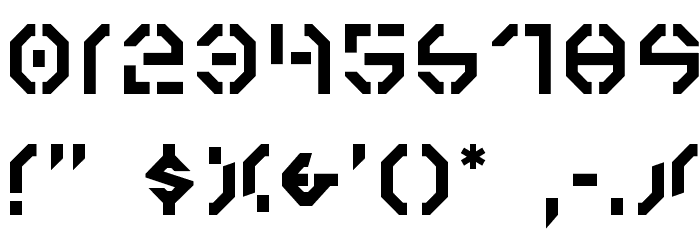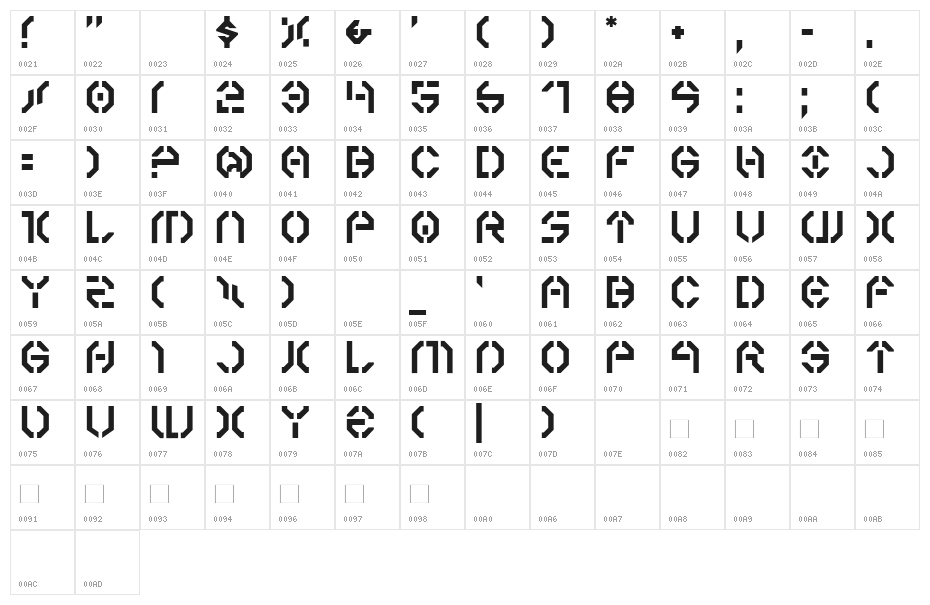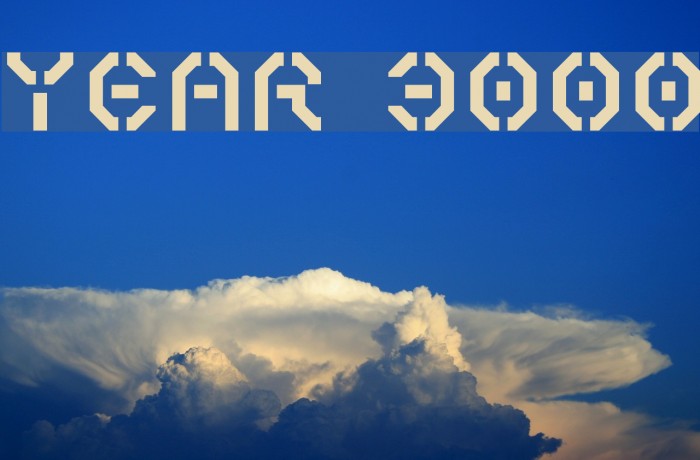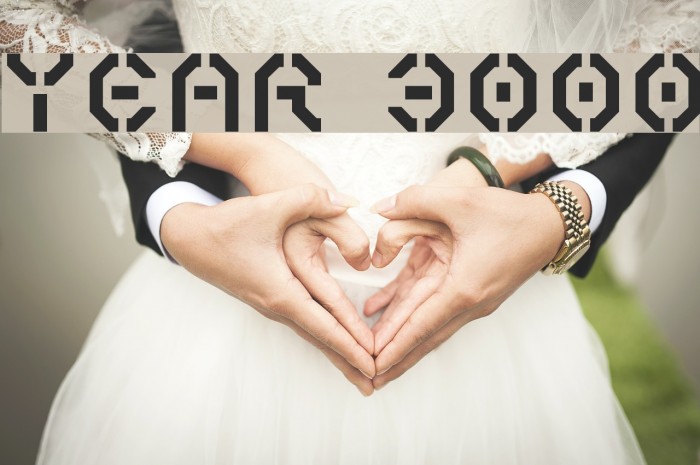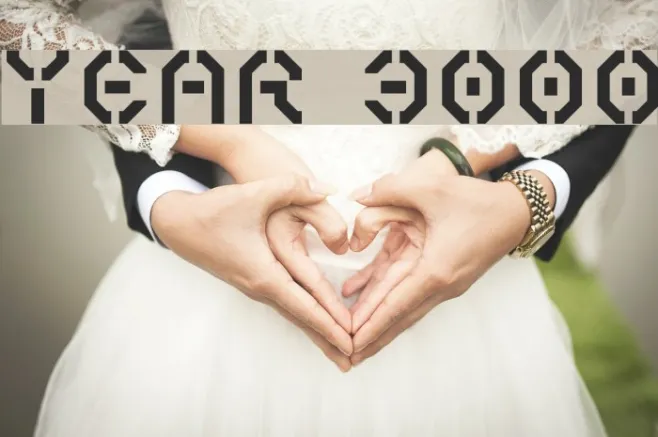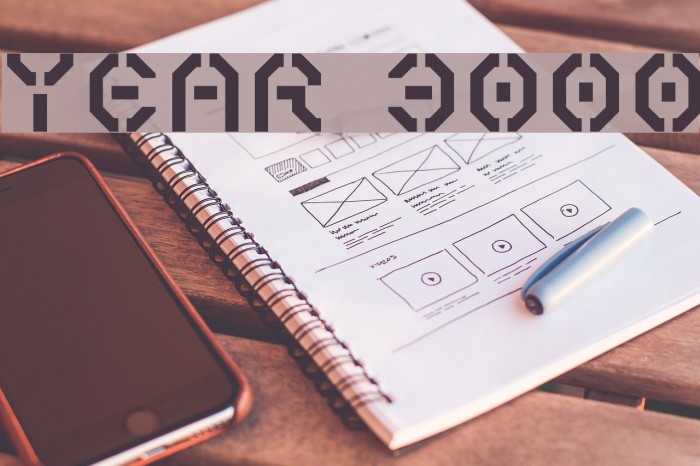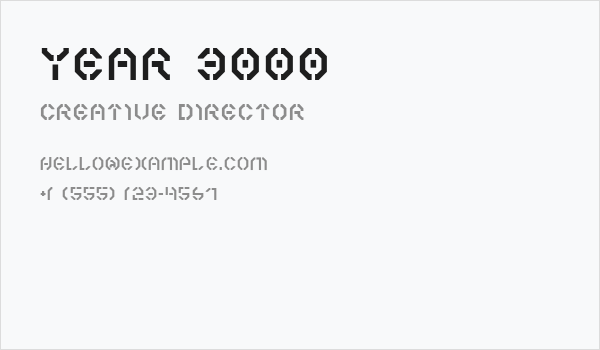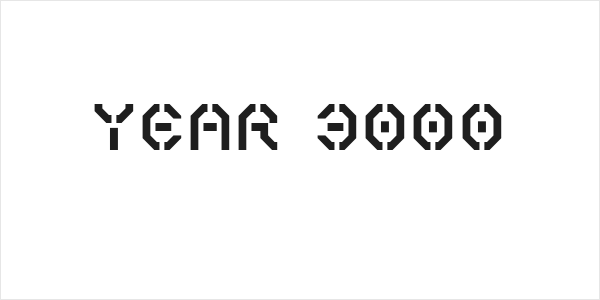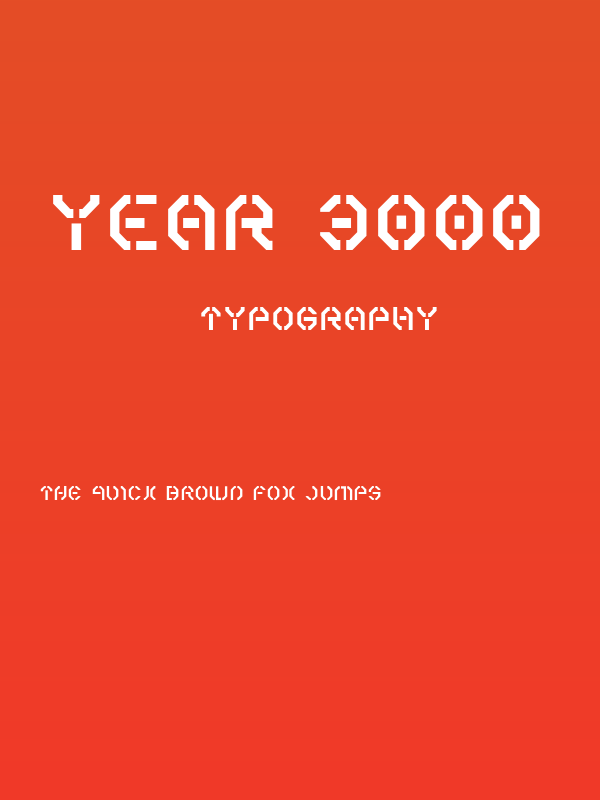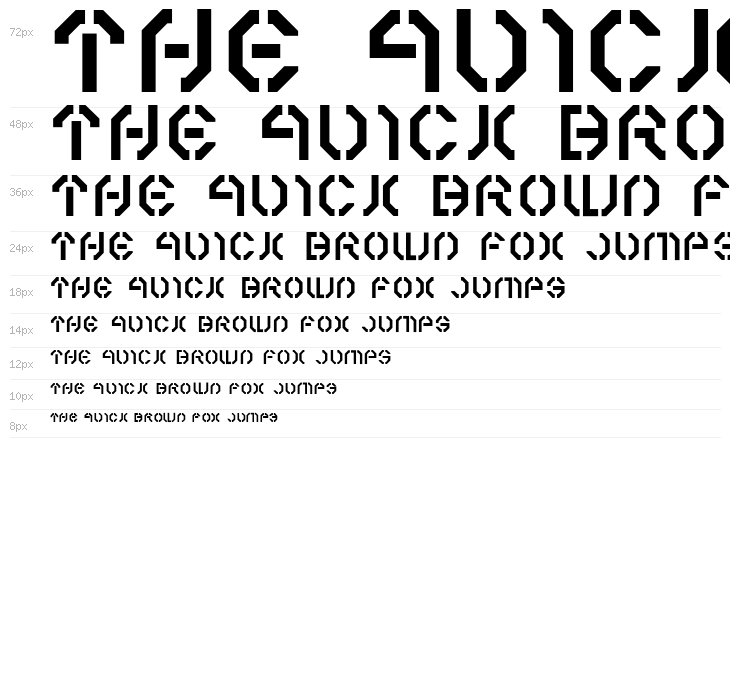
Year 3000 Font
Year 3000 Description
This futuristic font features a geometric and angular design, reminiscent of digital and technological aesthetics. Each character is constructed with sharp, straight lines and distinct angles, creating a bold and striking appearance. The uppercase and lowercase letters maintain a consistent style, with a uniform height and width that enhances readability. The numbers and special characters follow the same design principles, ensuring a cohesive look across all elements. This font is ideal for projects that require a modern, cutting-edge feel, such as technology branding, sci-fi themes, or digital interfaces.
| Use Case | Headlines, Logos, Digital Interfaces |
| Proposed Projects | Ideal for technology branding, sci-fi themes, digital interfaces, and modern advertising. |